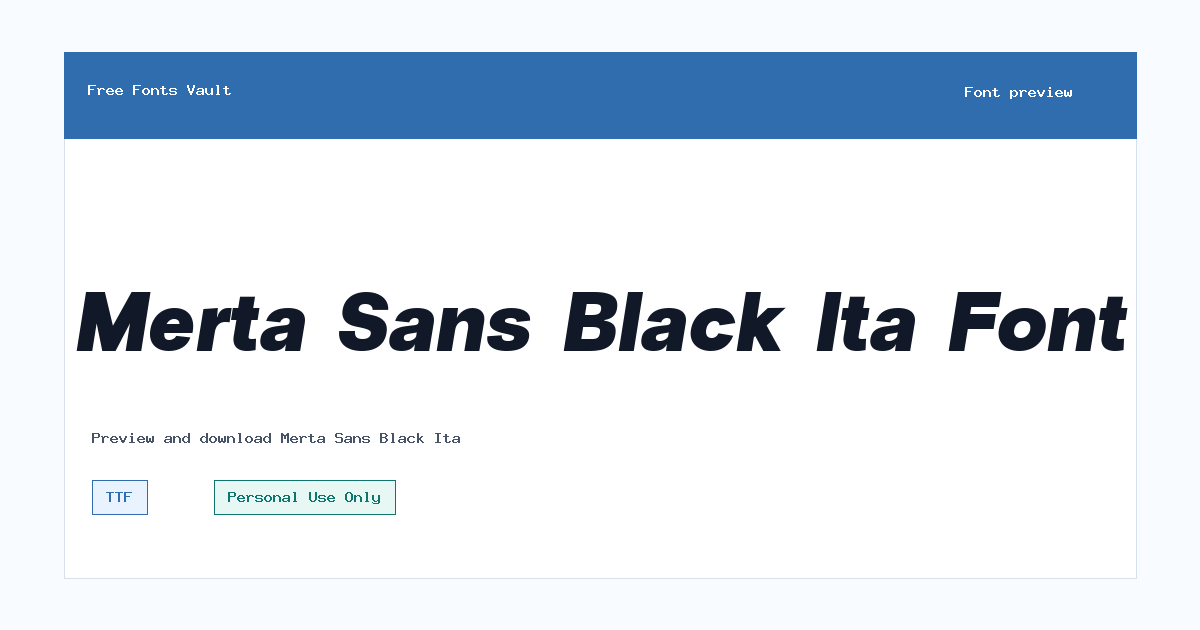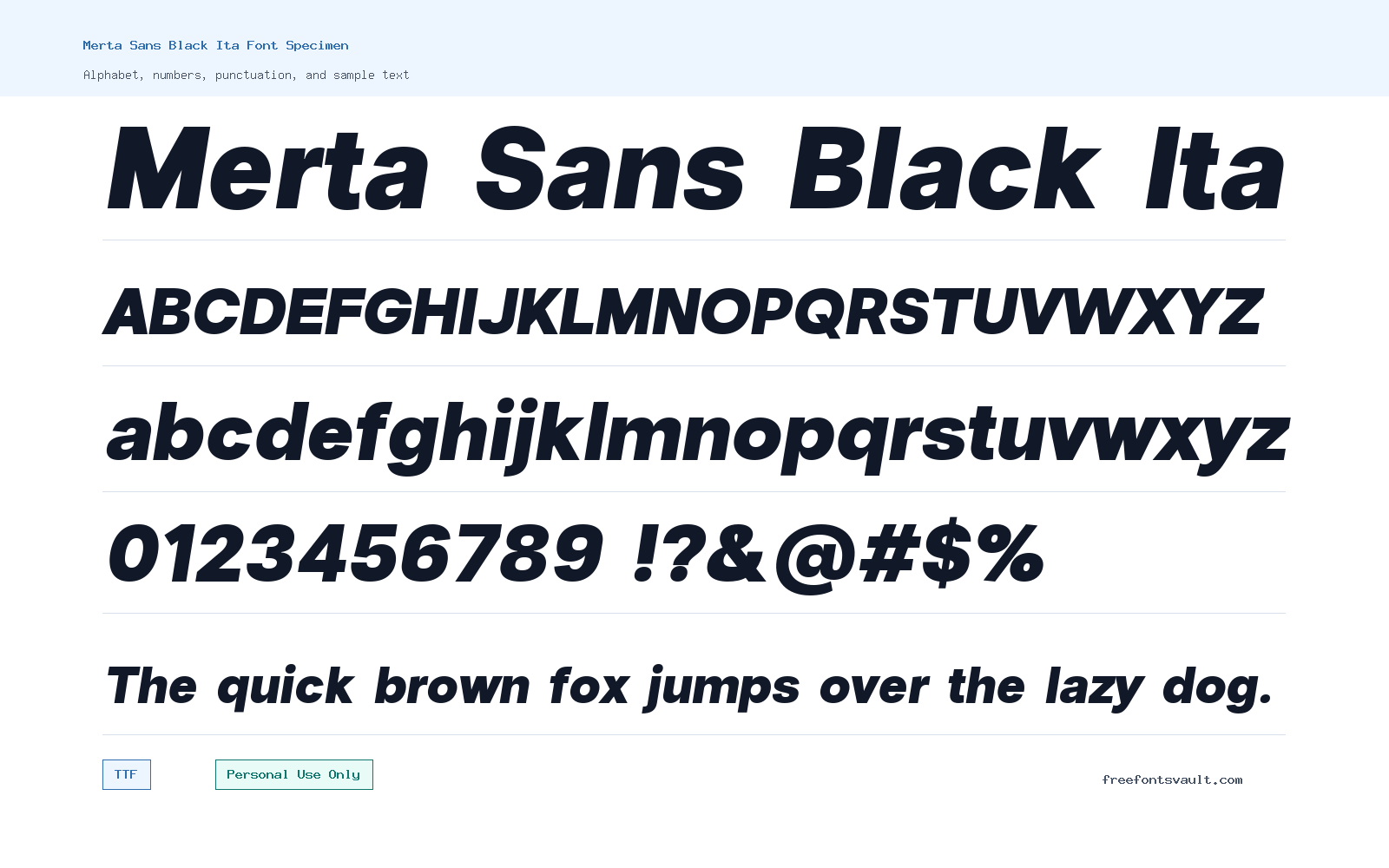
Merta Sans Black Ita
- Designer Diki Pradipta Tri Atmojo
- Foundry Lettertype Studio Co.
Merta Sans Black Ita font.
Merta Sans Black Ita is a heavy italic sans serif font with a strong display feel. Its 900 weight and slanted style make it useful when you want text to look bold, active, and compact without using a decorative script or serif.
About Merta Sans Black Ita Font
Merta Sans Black Ita is best treated as a display font rather than a long-reading typeface. The Black Italic style gives words a dense, forward-leaning shape, so it can add emphasis to short phrases, names, labels, and visual headlines. Because the font file is a TTF, it is suitable for common desktop design tools and many preview or mockup uses. The style is especially practical when a layout needs a strong sans serif voice but still needs movement from the italic angle.
Use it for short text first: poster titles, logo drafts, social graphics, YouTube thumbnail words, sports-style headings, packaging mockups, event flyers, and web hero concepts. In a logo or brand test, try the font in uppercase, title case, and a short lowercase word to see how the italic rhythm affects spacing. Heavy italic fonts can become tight quickly, so increase letter spacing when the word feels crowded, especially in all caps. For web mockups, use it as an accent face for headlines or buttons, then pair it with a lighter, upright sans serif for body copy. That contrast helps the heavy italic style stand out without making the whole page feel visually loud.
- Black-weight sans serif style with an italic slant for bold display text
- Works best in short headlines, marks, labels, and visual emphasis rather than long paragraphs
- Poster headlines and event graphics that need strong angled text
- Logo drafts, wordmarks, and brand concept exploration
- Website hero mockups, banners, and call-to-action text
- Social media graphics, thumbnails, and short promotional phrases
- Packaging mockups, badges, stickers, and bold label designs
Merta Sans Black Ita is credited to designer Diki Pradipta Tri Atmojo and foundry Lettertype Studio Co.
Start with short words or brief phrases in the preview box. Check the spacing at the final size you plan to use, because a 900-weight italic can feel compressed in small spaces. For cleaner layouts, pair it with a neutral upright sans serif in regular or medium weight. Avoid using it for paragraph text, captions, or dense interface copy; the heavy italic style is stronger when it appears as an accent.
What kind of font is Merta Sans Black Ita?
It is a heavy italic sans serif style. The file is marked as a 900-weight italic TTF, so it is best for bold display typography rather than long body text.
Where does Merta Sans Black Ita work best?
It works best in short, high-impact text such as posters, headings, badges, social graphics, thumbnails, web hero text, and mockup titles.
What should I pair with Merta Sans Black Ita?
Pair it with a simpler upright sans serif for body copy and supporting text. A regular or medium weight companion font will balance the heavy italic headline style.
Is Merta Sans Black Ita good for paragraphs?
It is not the best choice for paragraphs. The black weight and italic angle are easier to read in short bursts, so keep it for titles, labels, and emphasis.